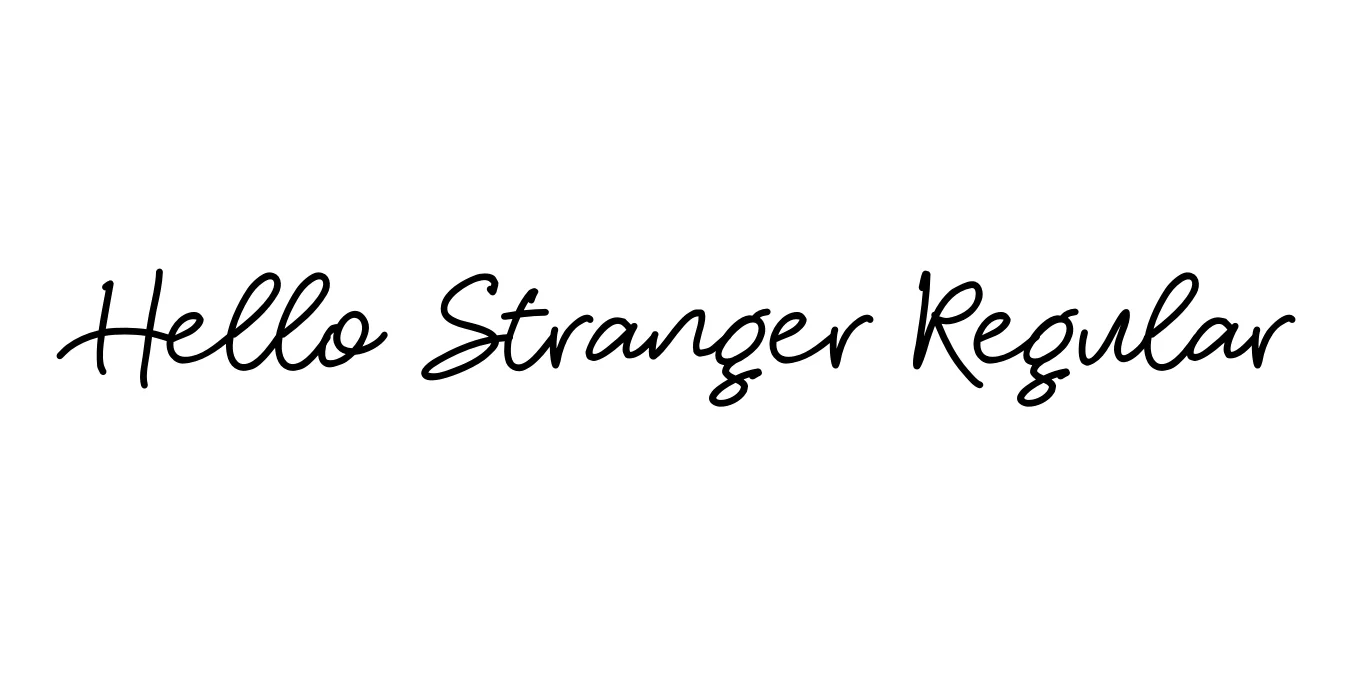
Hello Stranger Regular
Designed by Creatype Studio
Hello Stranger Regular is a sophisticated handwritten script font designed to emulate natural, fluid penmanship. Developed by Creatype Studio, this typeface features elegant strokes and a rhythmic flow that brings a sense of authenticity and personal touch to any creative project. The design focuses on balanced proportions and seamless connections between characters, making it highly readable while maintaining a distinct artistic flair.
The font is particularly popular in the world of modern branding and digital design due to its versatility. It comes equipped with a variety of ligatures and stylistic alternates that allow designers to create custom-looking typography effortlessly. From high-end fashion labels to intimate wedding stationery, Hello Stranger provides a professional yet approachable aesthetic that resonates with contemporary audiences.
Hello Stranger Regular Best Uses
Ideal for creating unique and memorable logos and corporate identities.
Perfect for invitations, save-the-date cards, and seating charts.
Great for stylish Instagram quotes and Pinterest-ready graphics.
Adds a premium feel to cosmetics, boutique products, and gift items.